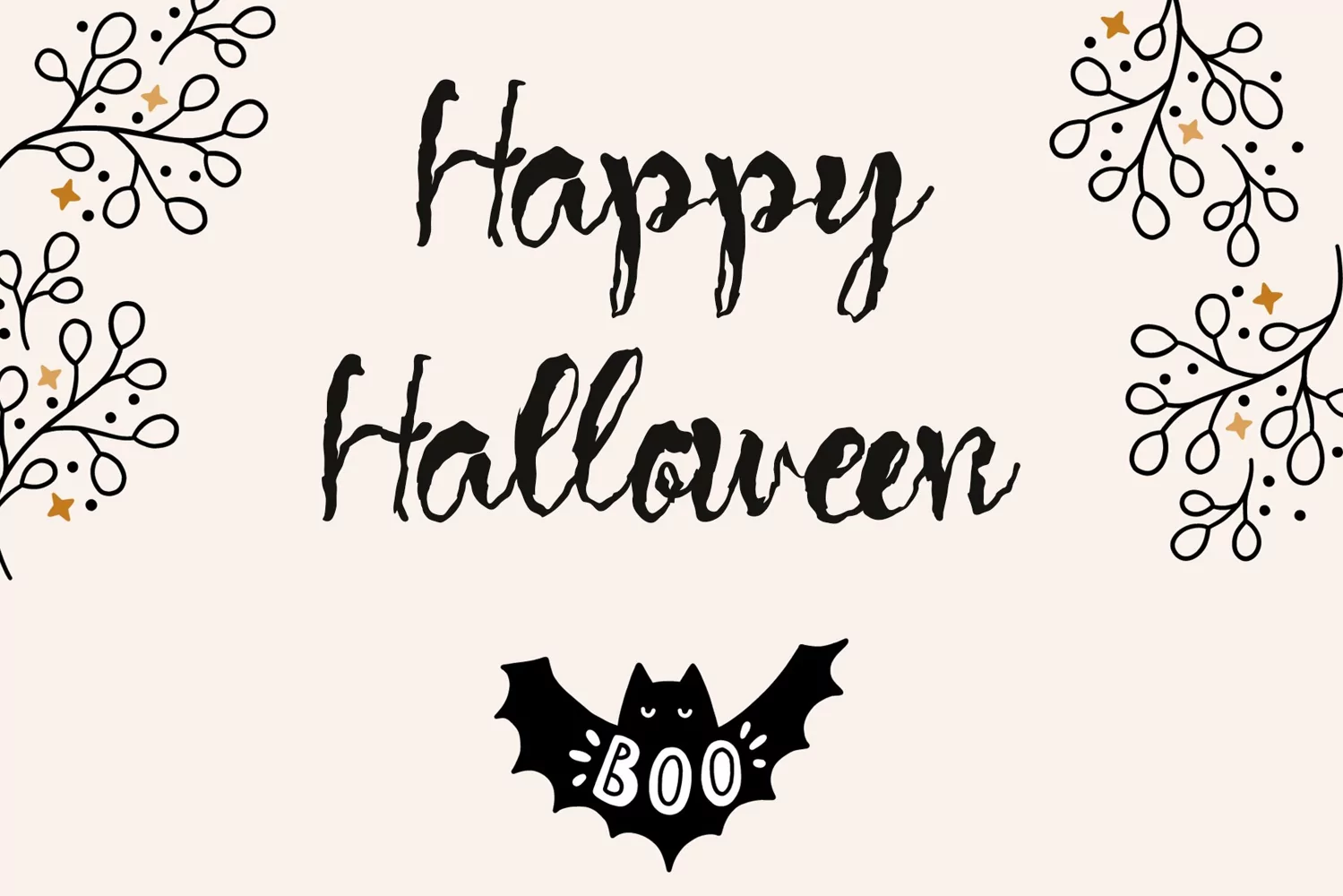
Remuk
"Remuk" is a very unique handwritten font with an uneven lettering texture. This font is equipped with uppercase, lowercase, ligatures, numerals, punctuations, multilingual support. It is suitable for all types of needs (halloween, autumn, wedding, winter, christmas, summer, back to school, and others).